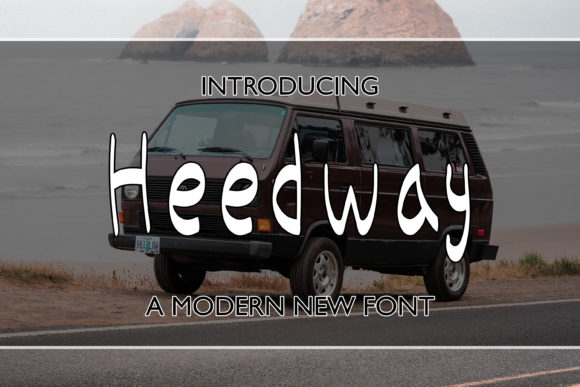
Introducing Heedway Font: The Perfect Blend of Simplicity and Modernity
In the world of typography, fonts play a crucial role in conveying the tone and personality of a design. For designers and crafters, finding the right font can make all the difference in creating visually appealing and engaging projects. If you’re on the hunt for a font that exudes simplicity, modernity, and friendliness, look no further than Heedway Font.
What is Heedway Font?
Heedway is a simple and modern handwritten font that has been gaining popularity among designers and crafters. Its clean lines, effortless flow, and elegant curves make it an excellent choice for a wide range of design projects. Whether you’re working on a logo, branding materials, social media graphics, or even a website, Heedway Font is sure to impress.
Key Features of Heedway Font
- Simple and Modern Design: Heedway Font boasts a sleek and contemporary design that will instantly elevate your projects.
- Handwritten Style: The font’s handwritten style adds a touch of warmth and personality to your designs, making them more relatable and engaging.
- Adaptable: Heedway Font is incredibly versatile and can be used on various design projects, from digital graphics to print materials.
- Fun and Friendly: The font’s playful and approachable vibe makes it perfect for designs that require a lighthearted and youthful tone.
Use Cases for Heedway Font
Heedway Font’s adaptability and unique style make it suitable for a wide range of design projects, including:
- Branding and Logo Design: Create a lasting impression with a custom logo that incorporates Heedway Font.
- Social Media Graphics: Add a personal touch to your social media posts and stories with Heedway Font.
- Web Design: Use Heedway Font as a header or body font to create a cohesive and visually appealing website.
- Print Materials: Heedway Font is perfect for business cards, brochures, flyers, and other print materials.
- Crafting and DIY Projects: Add a creative touch to your crafting and DIY projects, such as handmade cards, gift tags, and more.
Why Choose Heedway Font?
With so many fonts available, why should you choose Heedway Font? Here are a few compelling reasons:
- Unique Style: Heedway Font offers a distinctive and modern style that will set your designs apart.
- Ease of Use: The font is incredibly easy to read and works well in various sizes and resolutions.
- Time-Saving: With Heedway Font, you can quickly create stunning designs without spending hours on typography.
In conclusion, Heedway Font is an excellent choice for designers and crafters looking for a simple, modern, and handwritten font. Its adaptability, unique style, and friendly vibe make it perfect for a wide range of design projects. Whether you’re a seasoned designer or a crafting enthusiast, Heedway Font is sure to become a staple in your design toolkit. So why wait? Give Heedway Font a try today and take your designs to the next level!